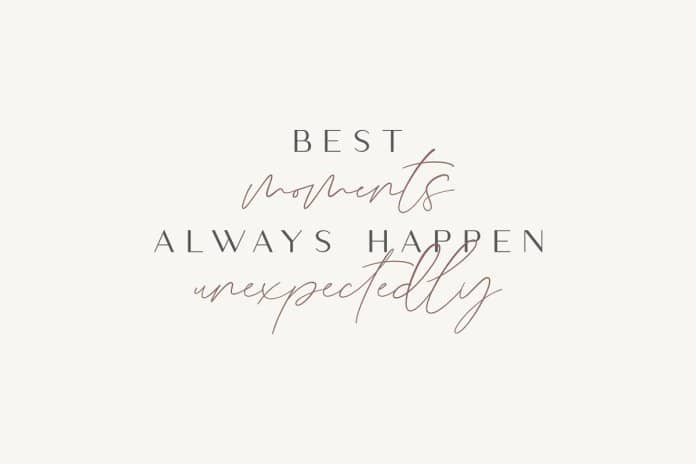
Germany Font Duo
This is a lovely handwritten and script font. This font is for individuals who want to project a smooth, modern image. If you want to appeal to modern buyers, you can use this typeface. Germany also comes with a set of 12 editable logo templates, each of which uniquely combines the two Germany typefaces to produce beautiful, modern logo designs that you can customize and use as your own. Simply open any of the 12 logo templates in Photoshop or Illustrator, alter the text, and, if desired, change the colors.
Logos are vector-based and may be scaled to any size without losing quality. Dharmas created and produced the font. Germany has over 58 ligatures and variations for each letter to make everything look completely hand-done. This typeface is a free-flowing script font with upper- and lowercase letters, digits, and a wide range of punctuation. At any time, the lovely Typeface can be effortlessly transformed to a web font. OTF and TTF are the two formats in which the typeface is offered.
For a variety of design tasks, including logos and branding, wedding designs, social media posts, ads, and product designs, Germany offers excellent typographic harmony. The typeface is also a fantastic choice for any form of marketing endeavor. Because it has all of the characteristics of a gorgeous Handwritten font, it will look excellent on any typewriting job. If you own a coffee shop, you can use this font in your marketing to give off a sophisticated vibe.